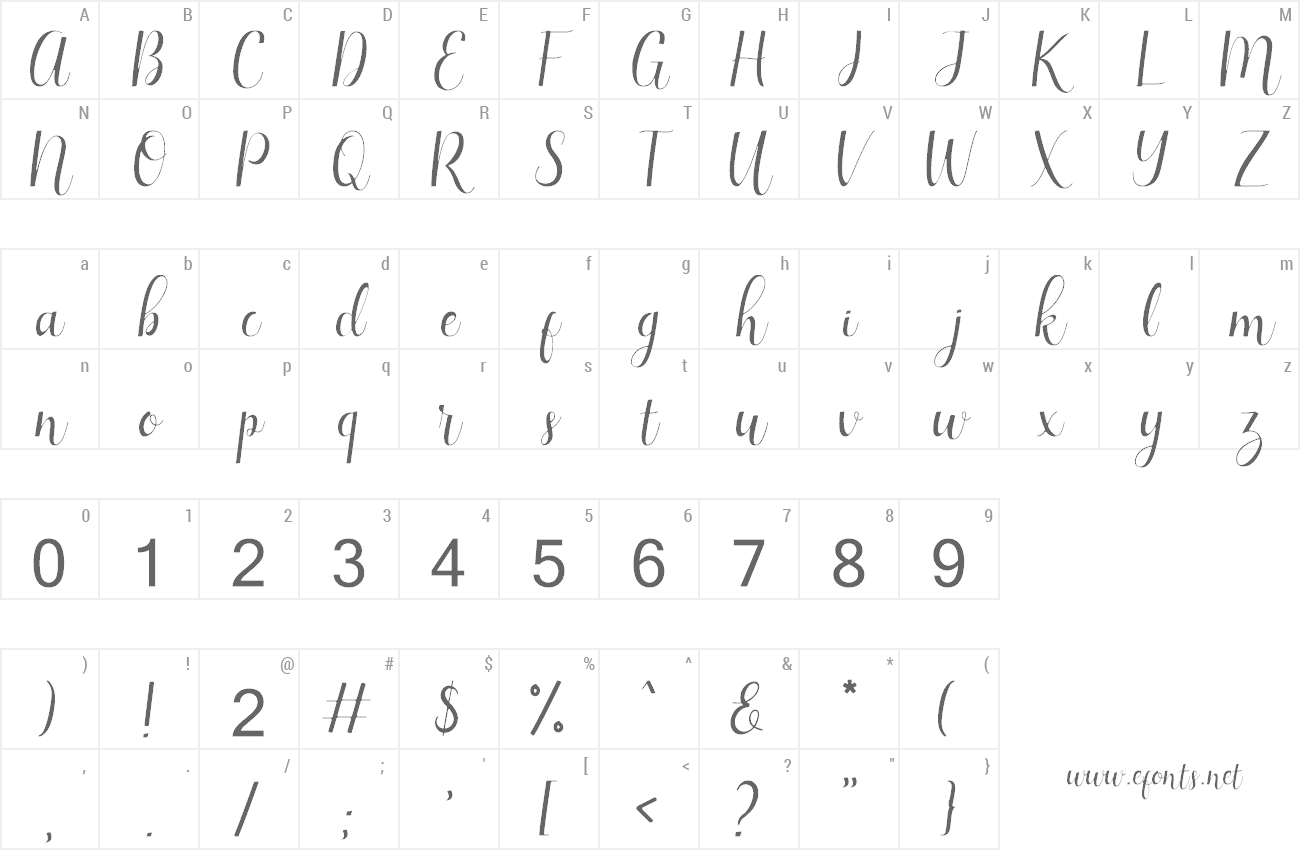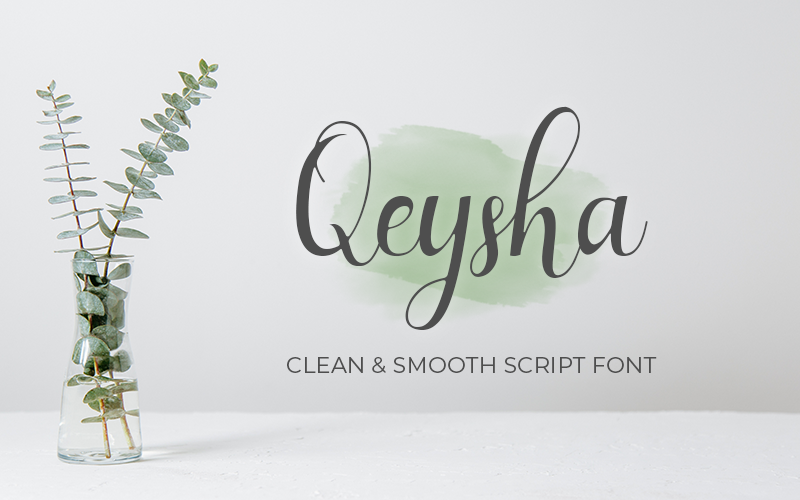
Preview and download Qeysha Script Font. Created by Khaidir Fajry in Script Calligraphy styles with Free for personal use license.
Hi Everyone, Introducing my new font project, it's called Qeysha Script. The Qeysha is a Beautiful script font. It has an elegant and feminine style and will add a luxurious touch to your design. NOTE : This demo font for PERSONAL USE ONLY, but little Donation very appreciated (Just Klik Donate button or this Link https://paypal.me/FajryAlFatih). Please buy a Full Version for Commercial Use. This font is�very suitable for Feminine Project Design for example : Feminine logo, Wedding invitation, Birthday invitation, Greeting card,�quote, Headline magazine, Clothing, Poster, Stationary and many other project design. Features In FULL VERSION: - Qeysha Script.otf - Qeysha Script.ttf - Standard Letters - Numeral and Punctuation - Natural Ligatures. Link download for FULL VERSION: - Creatifabrica: https://www.creativefabrica.com/product/qeysha-script/ref/227502/ - The Hungry JPEG: https://thehungryjpeg.com/product/3522639-qeysha-script/ Contact me at: @fajry.al.fatih13@gmail.com Thank You |